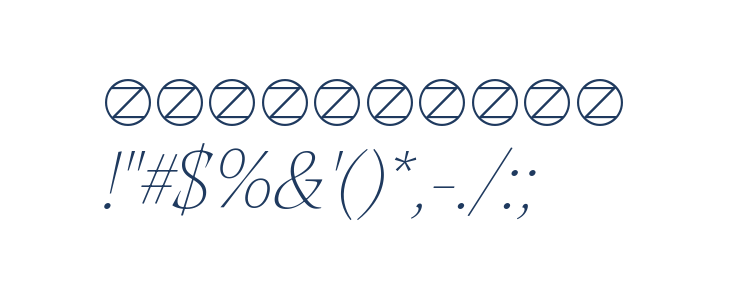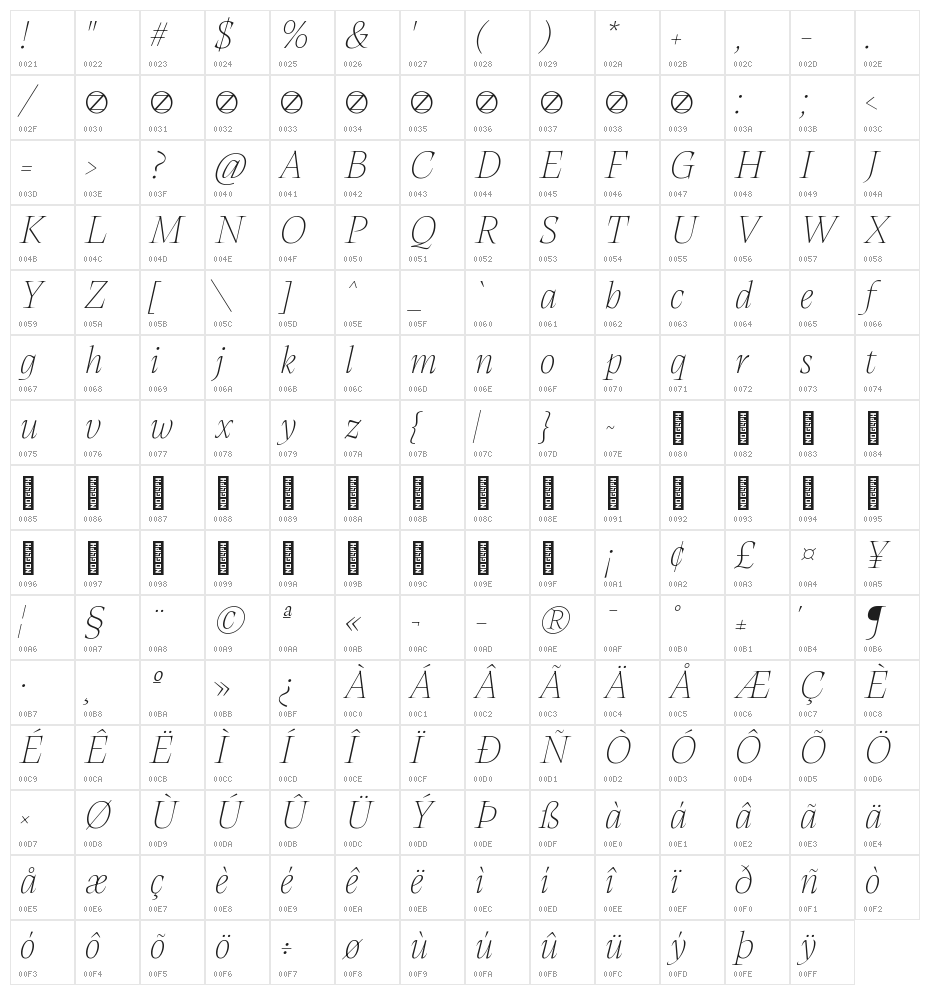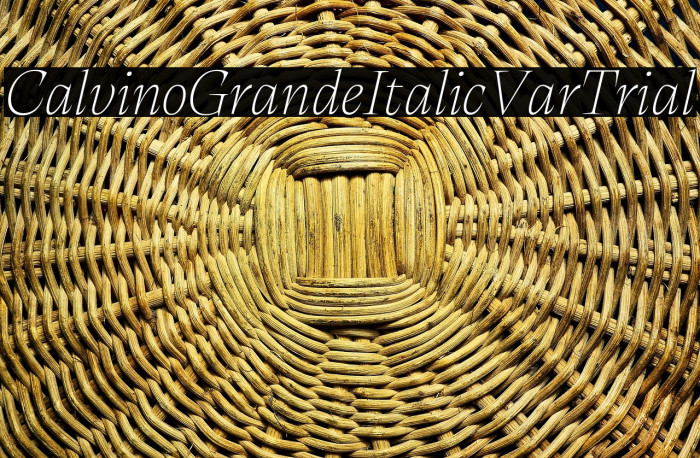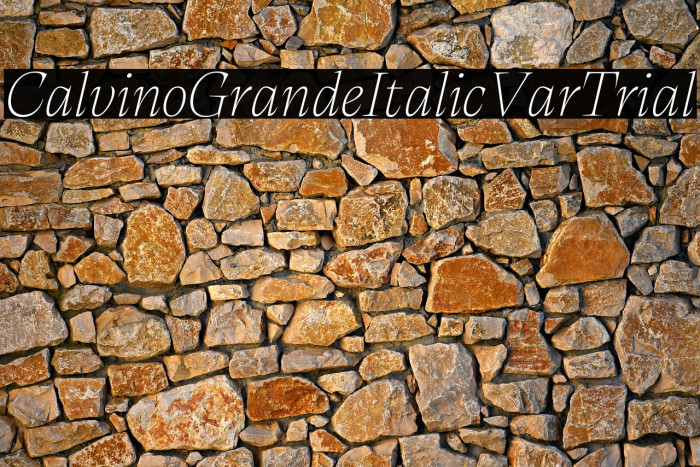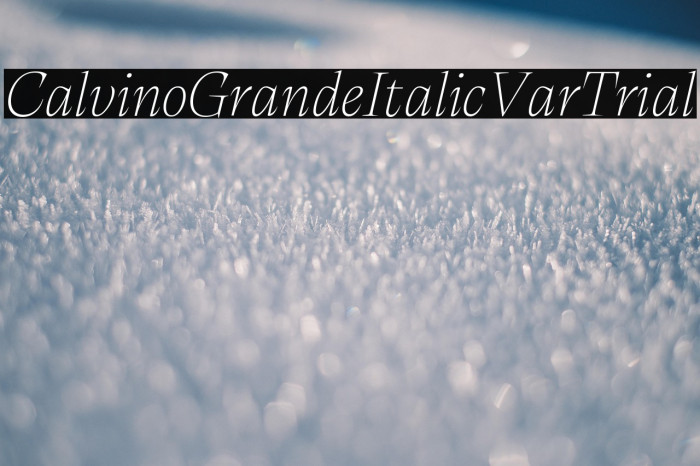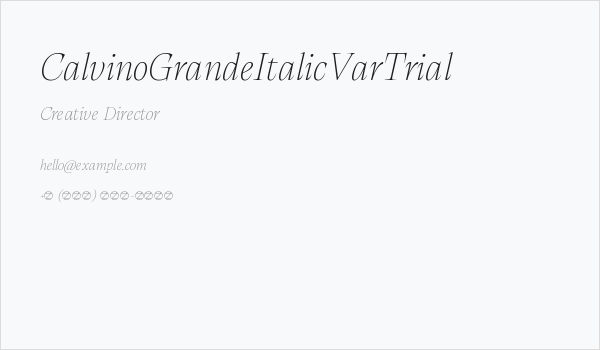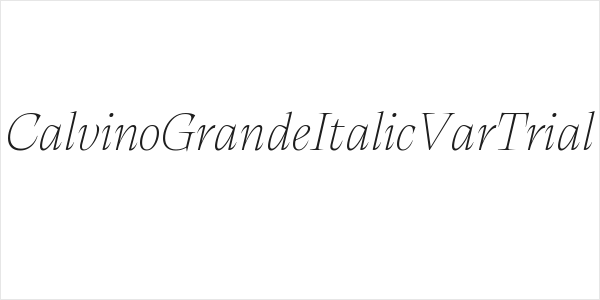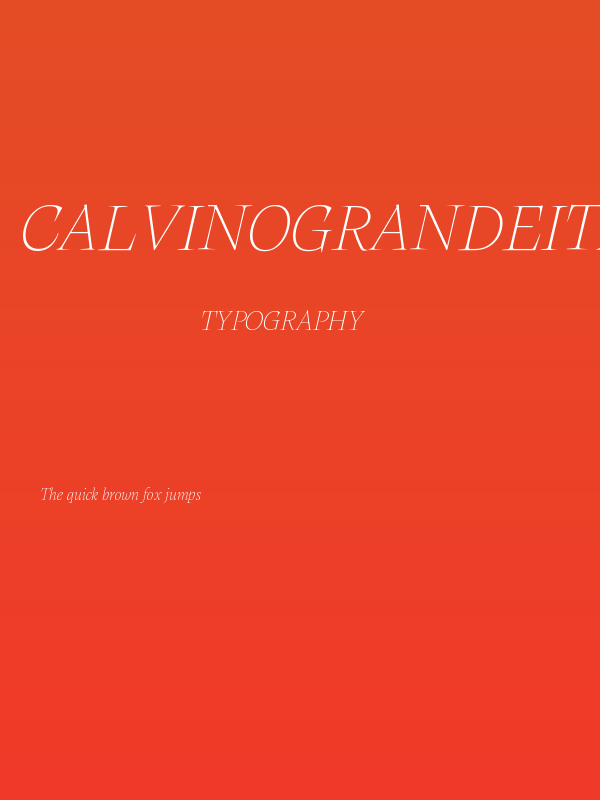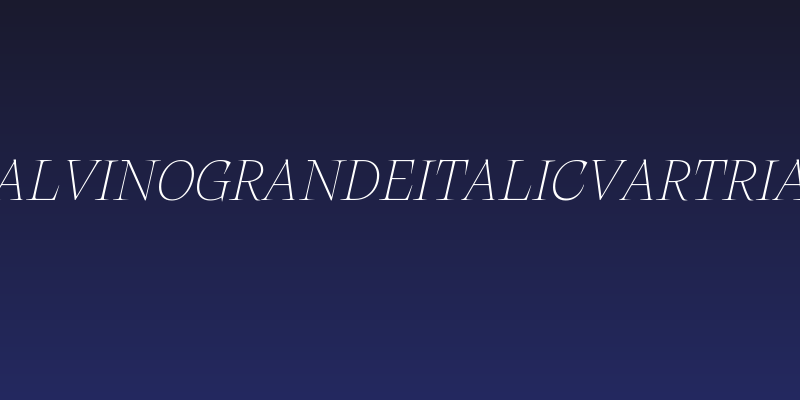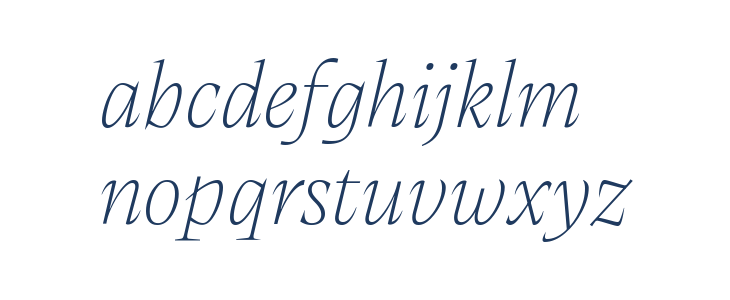
CalvinoGrandeItalicVarTrial Font
CalvinoGrandeItalicVarTrial Description
This elegant typeface features a refined and sophisticated italic style, characterized by its graceful curves and fluid strokes. The letters are slightly slanted, adding a dynamic and stylish flair to the text. The uppercase letters are tall and slender, while the lowercase letters maintain a consistent flow, enhancing readability. The numerals are well-proportioned, and the special characters are designed with a harmonious balance. This font exudes a sense of modernity and elegance, making it suitable for a variety of design applications.
| Use Case | Headlines, Logos, Editorial design |
| Proposed Projects | Ideal for wedding invitations, luxury branding, editorial design, and elegant packaging. |